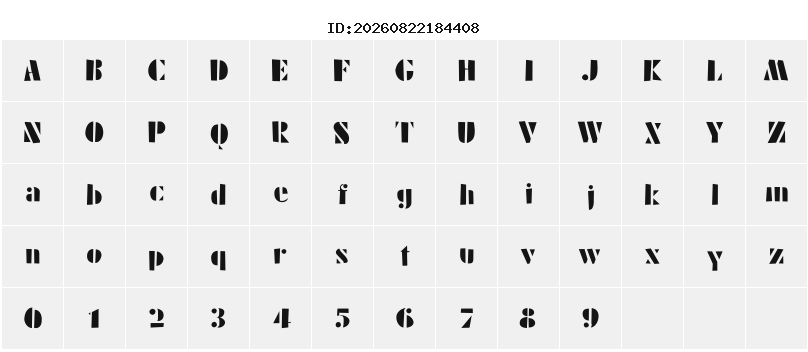
Schablonski-LessFat.ttf is a modern, elegant sans-serif font designed for ultimate readability and visual harmony. Perfect for branding, headlines, web design, and print materials.